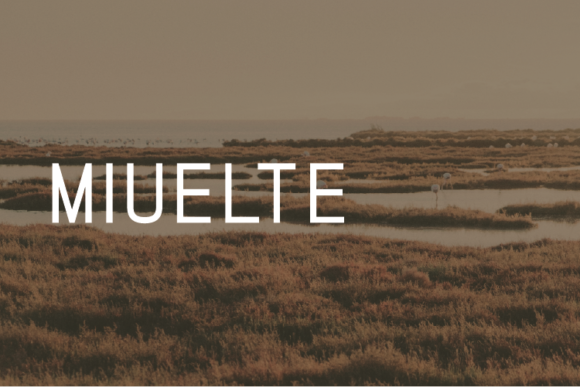
Journey into a Realm of Typographic Elegance with Miuelte Font, a Sans Serif Masterpiece
In the vast digital landscape, where words take center stage, Miuelte Font emerges as a visionary creation, a typographic marvel that breathes life into your digital expressions. This modern and classy sans serif typeface is a testament to the power of simplicity and sophistication, crafted with meticulous attention to detail by the esteemed font artisan, A Christie.
Miuelte Font's versatility knows no bounds, making it an indispensable tool for designers, creative professionals, and anyone seeking to add a touch of elegance and distinction to their projects. Its clean lines and crisp curves render it perfect for logos, imbuing your brand identity with a timeless appeal. Whether you seek to create captivating wedding invitations, heartfelt cards, or stunning advertisements, Miuelte Font stands ready to elevate your designs to new heights.
Dive into the world of print and publishing, where Miuelte Font shines as a beacon of clarity and readability. Its well-balanced letterforms and generous spacing ensure effortless reading, making it an ideal choice for magazines, brochures, and other printed materials. Unleash your creativity and let Miuelte Font transform your written words into visually stunning masterpieces.
The digital realm beckons, and Miuelte Font answers the call, effortlessly adapting to the demands of the online world. Craft social media posts that captivate and engage your audience, leaving a lasting impression with every word. From eye-catching headlines to poignant quotes, Miuelte Font amplifies your message with grace and charm, ensuring your digital presence radiates with individuality and sophistication.
Embrace Miuelte Font, the ultimate sans serif companion for your creative endeavors. Its versatility empowers you to weave magic across diverse projects, from logos to invitations, print to digital. Let your imagination soar as Miuelte Font elevates your designs, transforming them into captivating works of art.